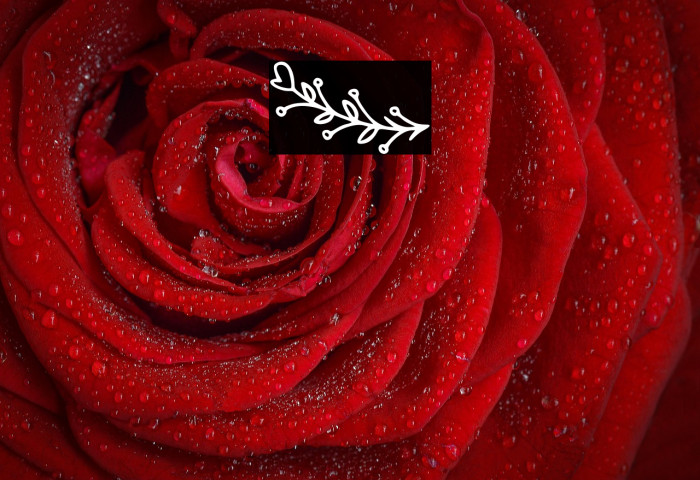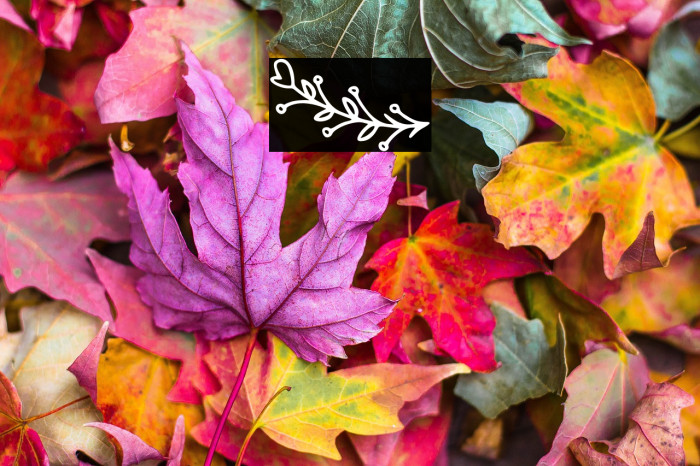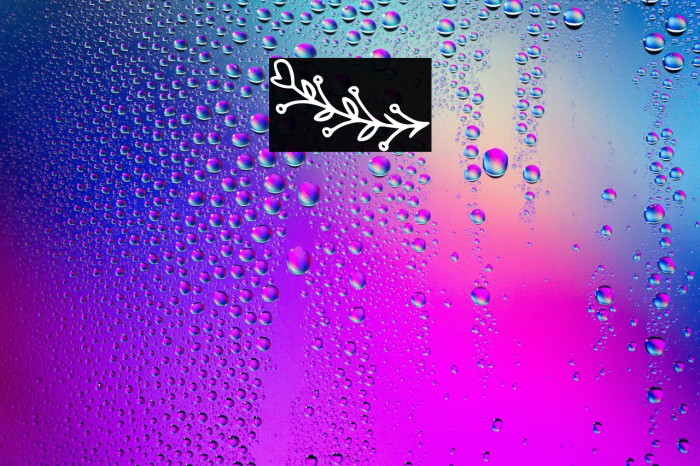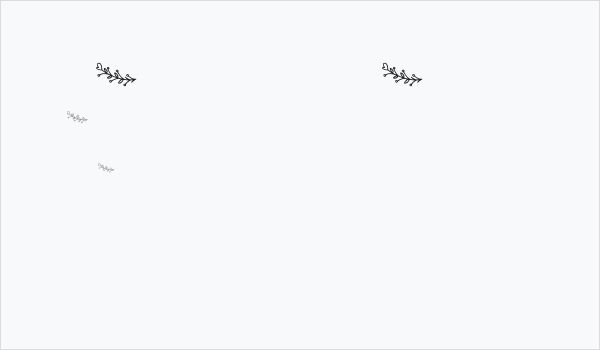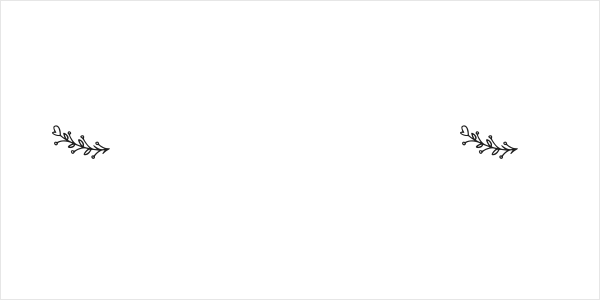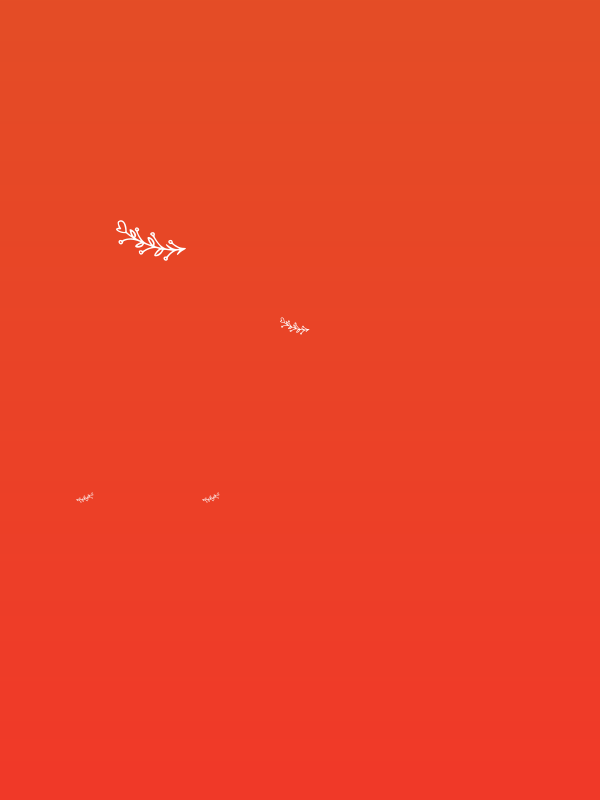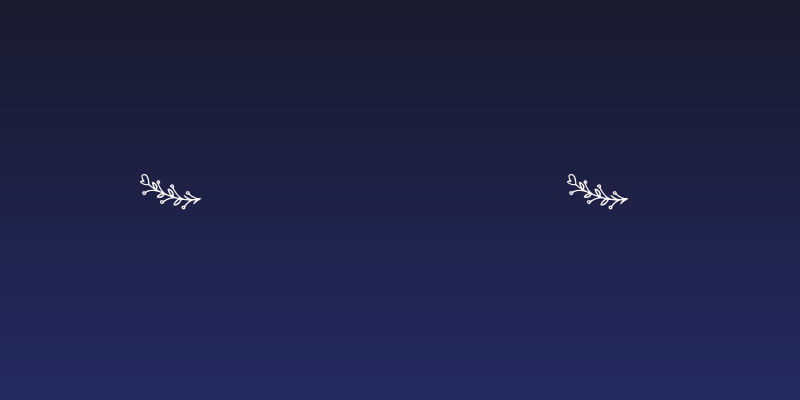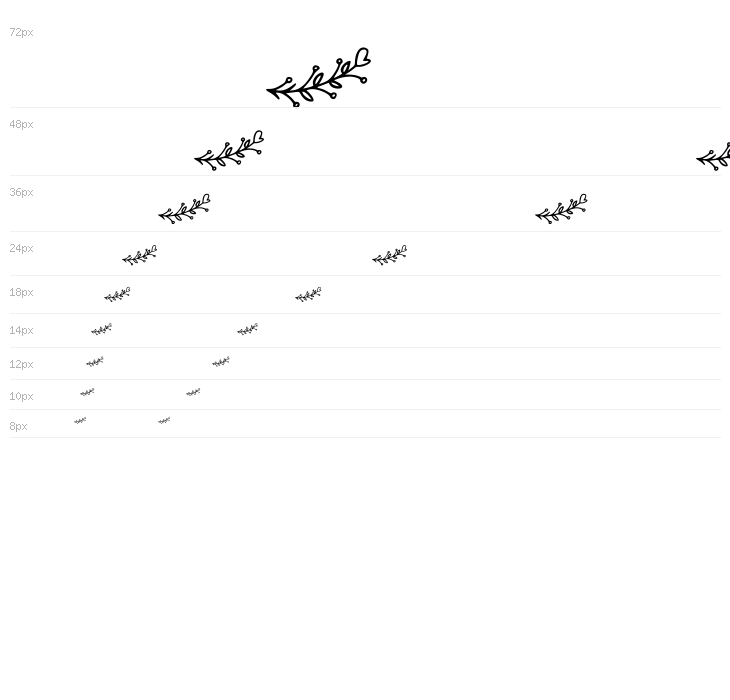
Bryan Kimberly Ornament Font
Bryan Kimberly Ornament Description
Hand-drawn ornamental branch motifs with heart-shaped leaves and rounded ends, rendered in a simple, whimsical black line style.
| Overall Style | Decorative, Hand-drawn, Whimsical |
| Use Case | Ornamental accents, embellishments, decorative elements. |
| Proposed Projects | Wedding invitations, greeting cards, decorative borders, scrapbooking, branding for organic or handmade products. |